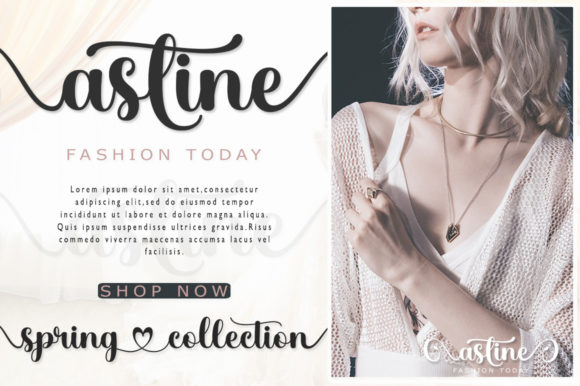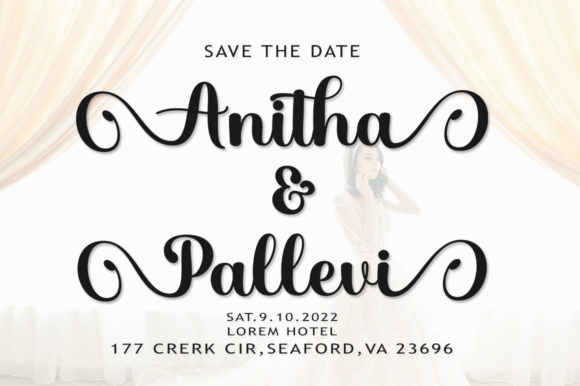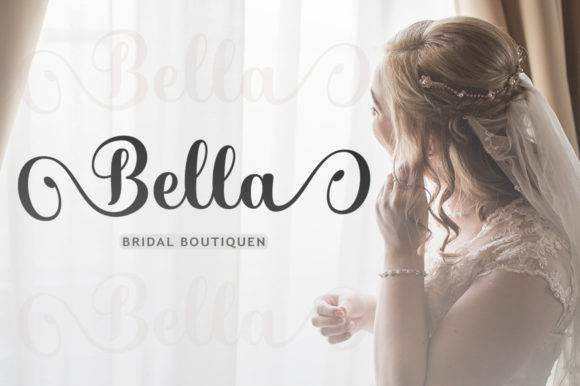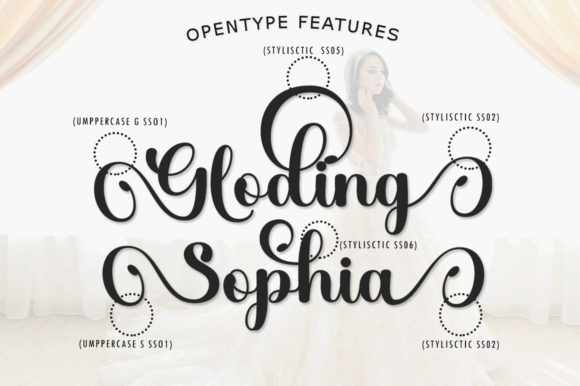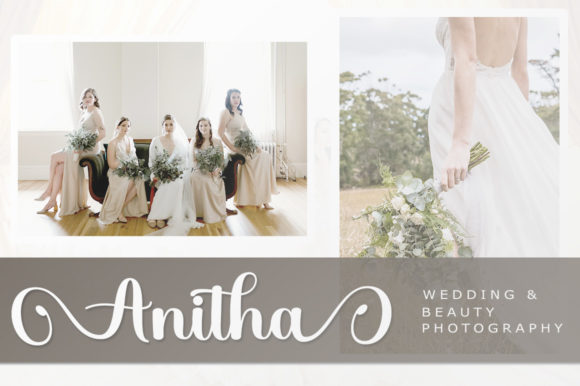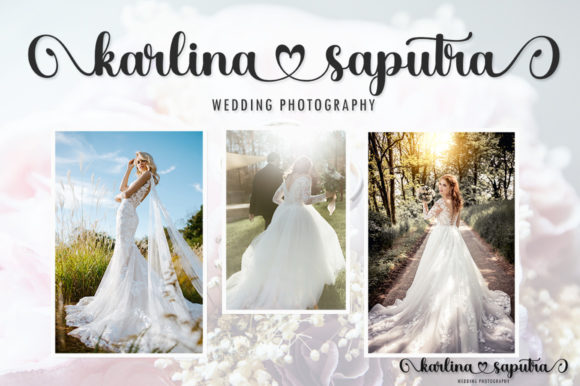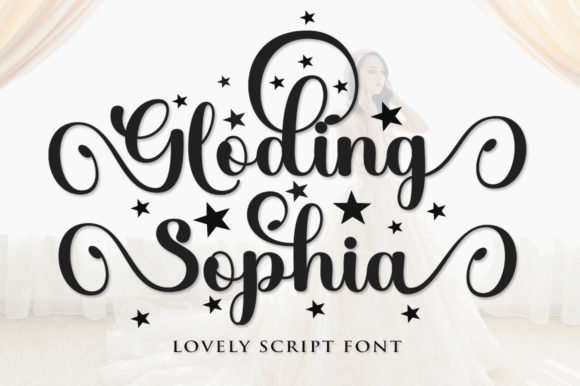
Introducing Gloding Sophia Script Font: Add a Touch of Romance to Your Designs
Are you looking for a font that can add a romantic feel to your designs? Look no further than Gloding Sophia Script Font. This enchanting handwritten font is perfect for a wide range of applications, from greeting cards to headlines, and is sure to make your project stand out.
What Makes Gloding Sophia Script Font So Special?
Gloding Sophia Script Font is a versatile script font that boasts a wide spectrum of applications. Its elegant and flowing lines make it perfect for designs that require a touch of sophistication and romance. Whether you’re creating a wedding invitation, a greeting card, or a headline, this font is guaranteed to add a special touch to your project.
One of the best things about Gloding Sophia Script Font is that it’s PUA (Private Use Area) encoded. This means that you can access all of the beautiful glyphs and swashes with ease, making it simple to customize your design and make it truly unique. With PUA encoding, you can unlock a world of creative possibilities and take your designs to the next level.
Gloding Sophia Script Font is a must-have for designers and crafters who want to add a touch of elegance and sophistication to their work. Whether you’re creating digital designs or handmade crafts, this font is perfect for a wide range of projects, including:
- Wedding stationery and decorations
- Headlines and titles
- Signs and banners
- Digital art and illustrations
Why Choose Gloding Sophia Script Font?
There are many script fonts available, but Gloding Sophia Script Font stands out from the rest. Here are just a few reasons why:
- Unique and elegant design: Gloding Sophia Script Font has a distinctive and elegant design that’s sure to make your project stand out.
- Versatile: This font can be used for a wide range of applications, from formal to informal designs.
- Easy to use: With PUA encoding, you can access all of the glyphs and swashes with ease, making it simple to customize your design.
- High-quality: Gloding Sophia Script Font is a high-quality font that’s designed to produce crisp and clear results, even at small sizes.
Tips for Using Gloding Sophia Script Font
Here are a few tips for getting the most out of Gloding Sophia Script Font:
- Use it sparingly: While Gloding Sophia Script Font is beautiful, it can be overwhelming if used too much. Use it sparingly to add a touch of elegance to your design.
- Experiment with different sizes: This font looks great at a range of sizes, from small to large. Experiment with different sizes to find the one that works best for your design.
- Pair it with other fonts: Gloding Sophia Script Font looks great paired with other fonts. Try pairing it with a bold sans-serif font for a striking contrast.
Gloding Sophia Script Font is a beautiful and versatile font that’s perfect for designers and crafters who want to add a touch of romance and elegance to their work. With its PUA encoding and elegant design, this font is sure to make your project stand out. Whether you’re creating a greeting card, a headline, or a digital illustration, Gloding Sophia Script Font is a must-have font that’s sure to impress.